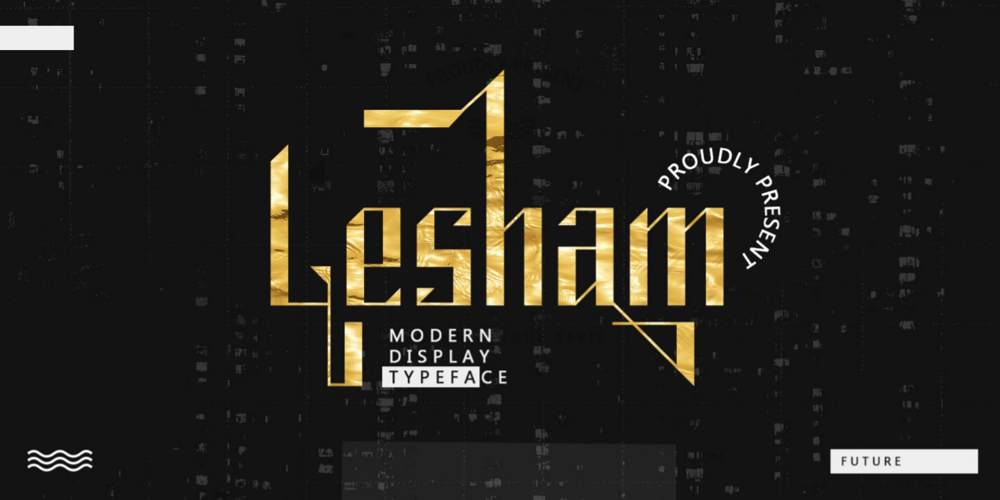
Lesham
Lesham font
Lesham Font Family was designed by Rina Kartina and published by Saxofont. Lesham contains 1 styles and family package options. Lesham fonts include uppercase, lowercase, numbers, alternative, and puch. This modern look typeface is made for posters, web design, branding, illustrations, badges, shirt designs and several other works.